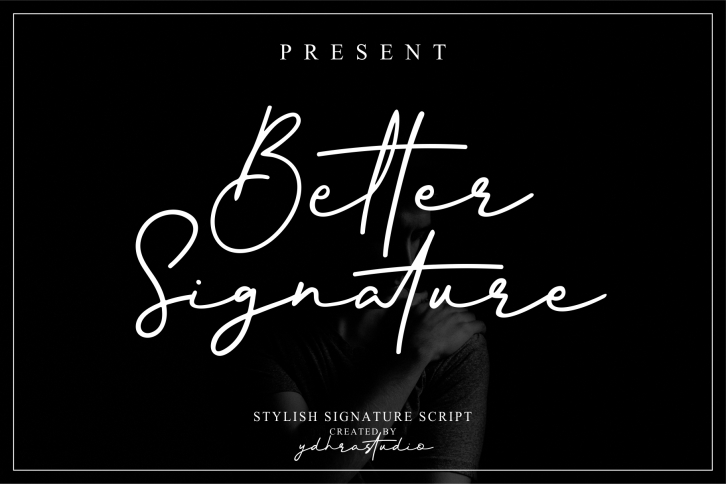
Better Signature is a great font that was designed by YdhraStudio. Imagine the amount of combinations you can create using this font! The archive is 2.25 MB and it was released on July 2, 2018. Better Signature looks beautiful on wedding invitations, greeting cards, logos, posters, labels, t-shirt designs, logos, business cards and is perfect for use in ink or watercolor works, fashion, magazines, packaging and food menus, children's books and more!